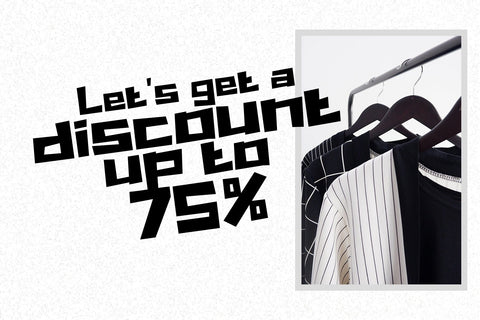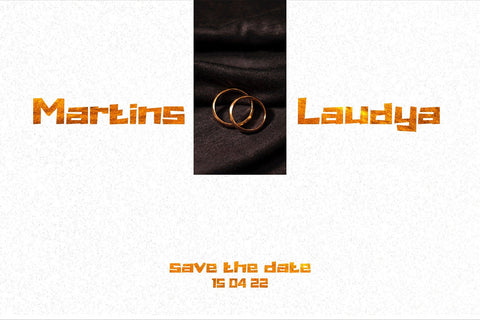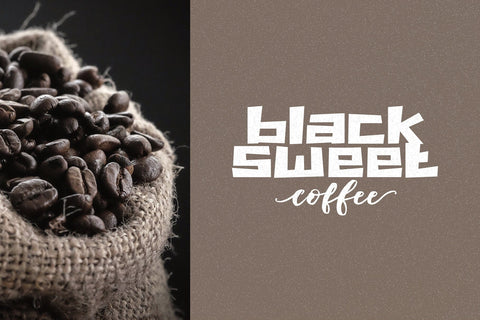
Walbert
Walbert is a bold and bold new display font. This blocky font creates a brave and strong style. It is suitable to meet your various design needs that are currently trending.
With a style like this, this font will be suitable in use for comic, logo's, branding projects, homeware designs, product packaging, mugs, quotes, posters, shopping bags, logo's, t-shirts, book covers, name card, invitation cards, greeting cards, and all your other lovely projects.
You can use this font for your job very easily. Because there are many features in it. Contains the complete set of lower and uppercase letters, punctuation, numbers, web fonts, and multilingual support. This font also includes several ligatures and alternative style Stylistic Set For those of you who have software that is capable of working OpenType (Corel Draw / Photoshop / Illustrator / InDesign).